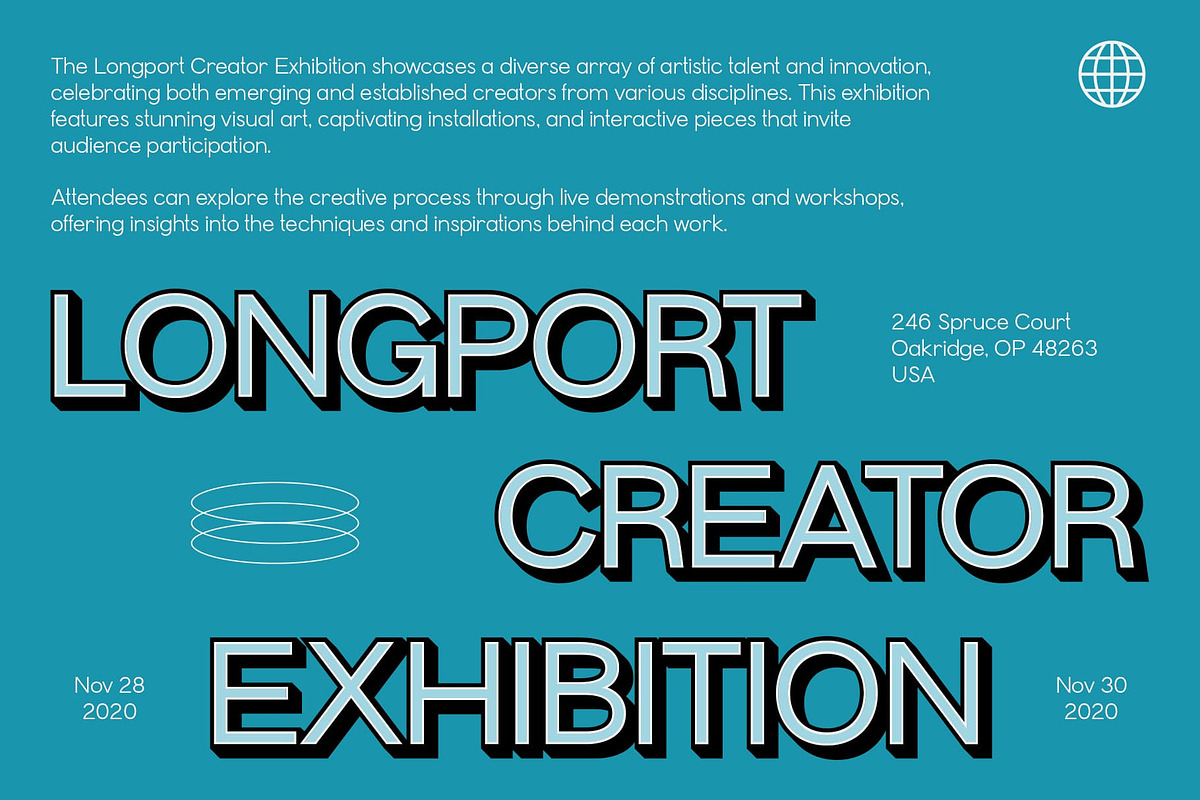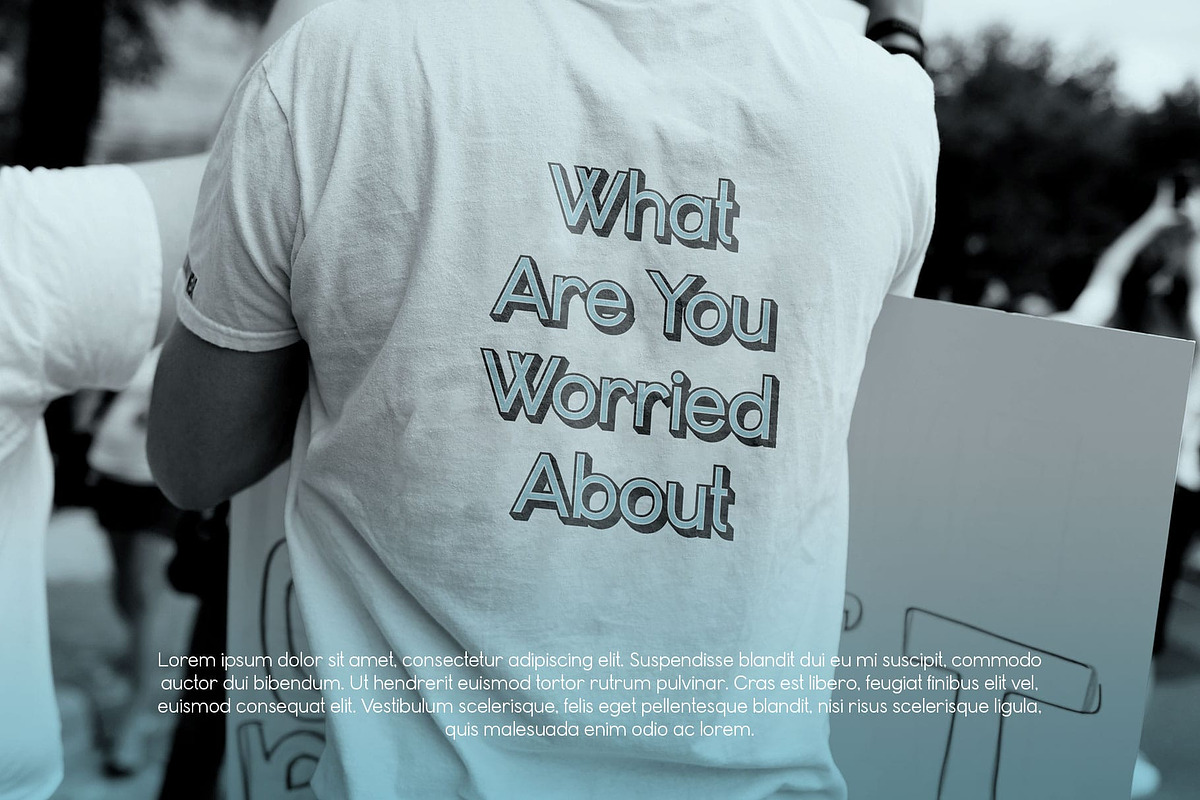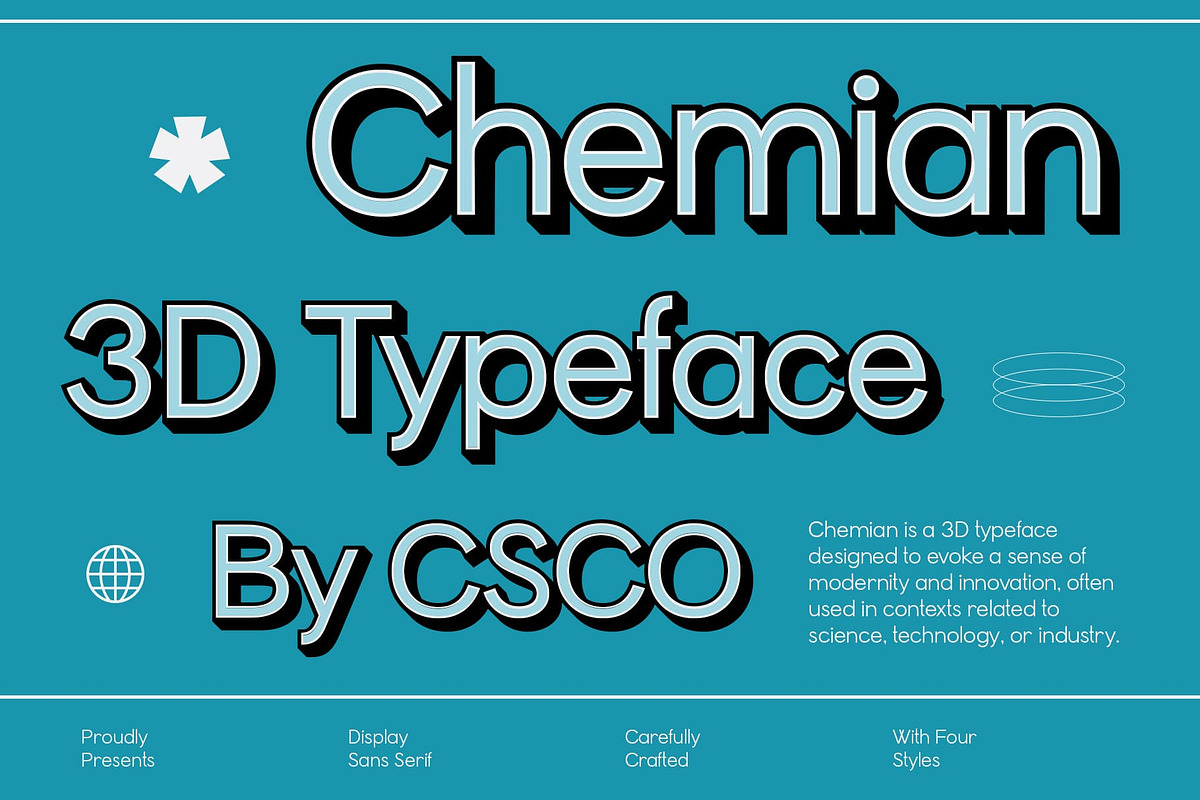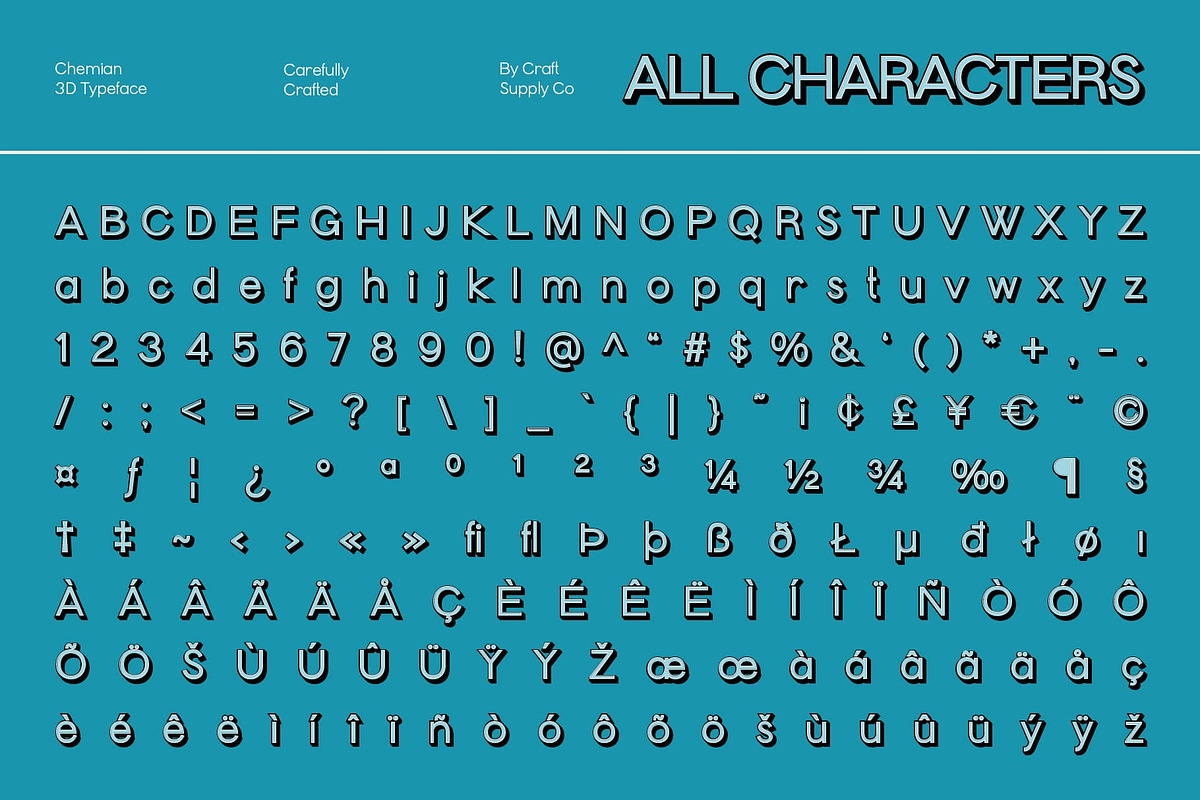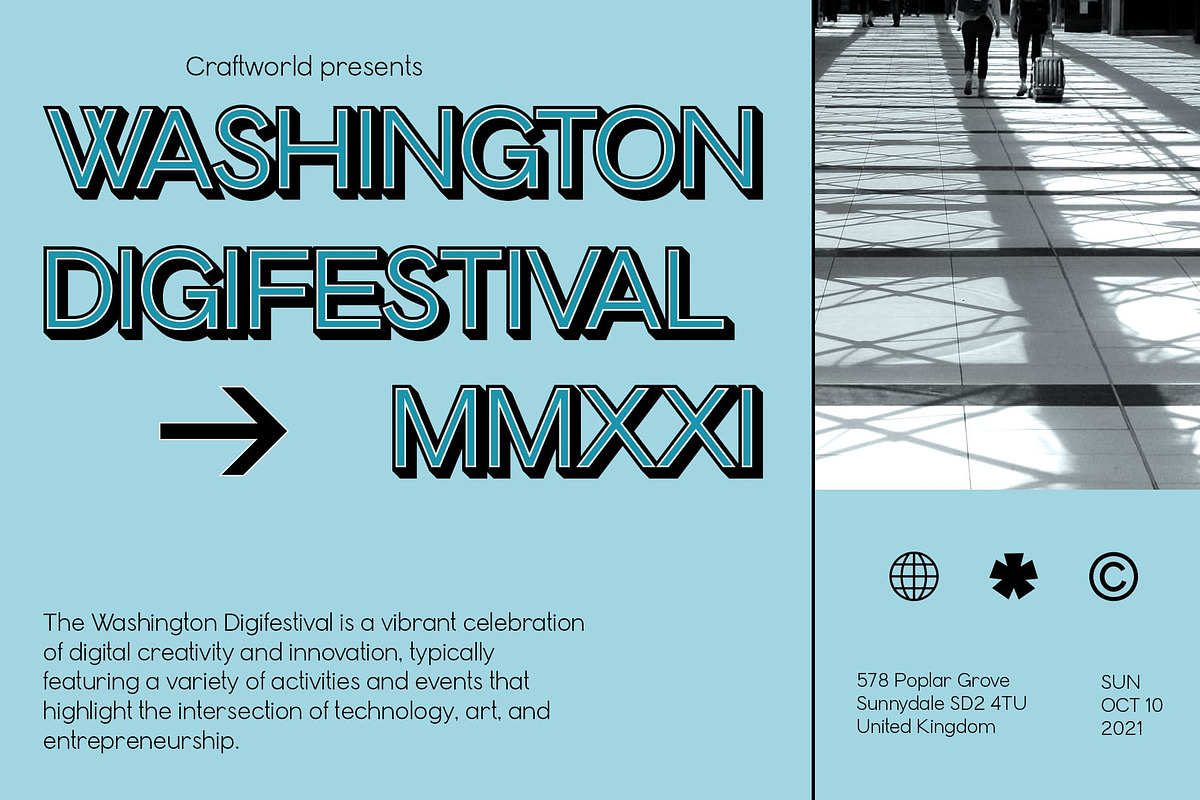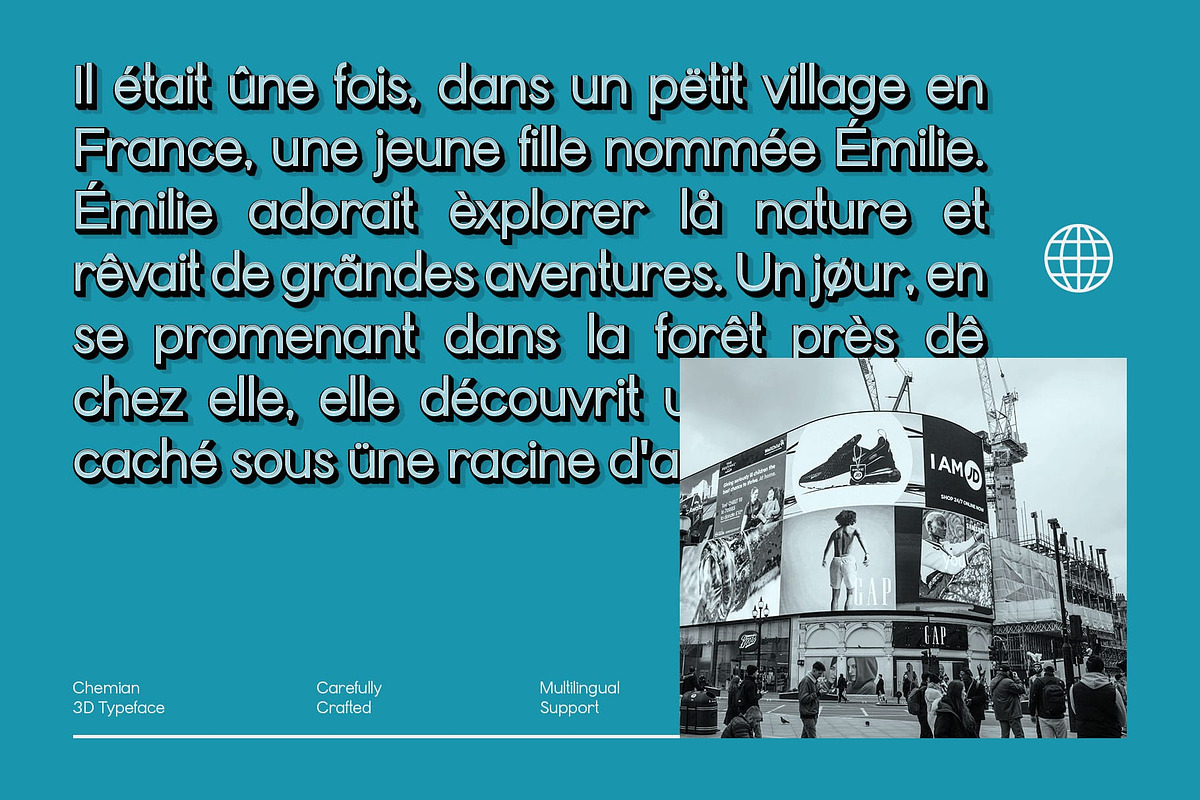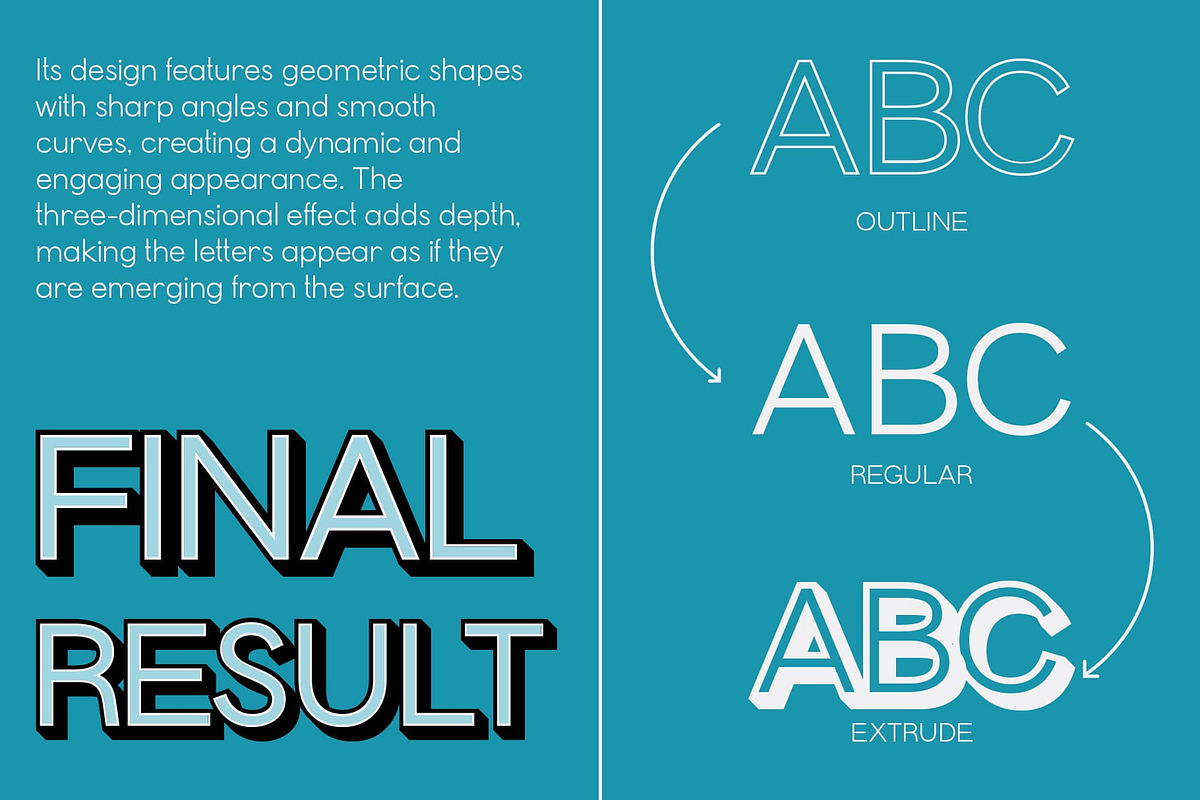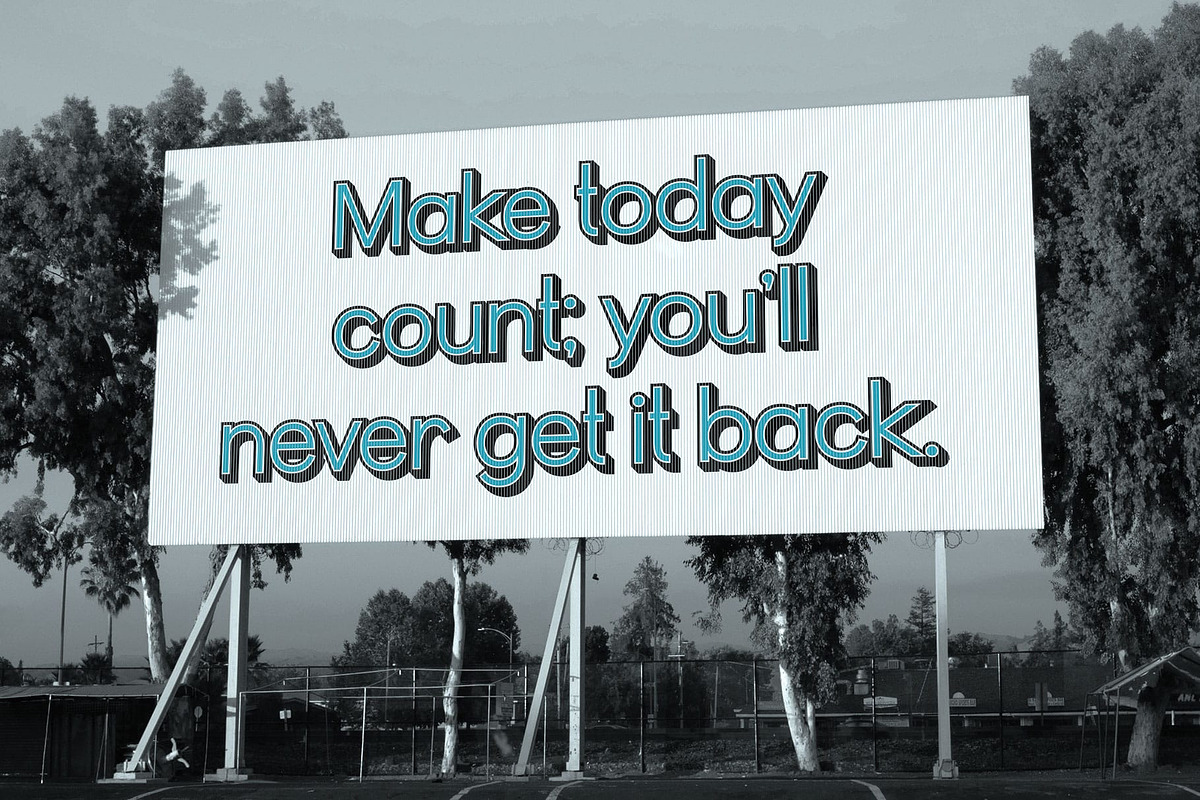
Chemian 3D
Chemian 3D Font: Modern Geometry Meets Dynamic Design
Futuristic Sans Serif Font with 3D Depth Chemian 3D is a modern sans serif font that epitomizes sleek, geometric design layered with an impressive 3D effect. This font features clean, sharp lines and symmetrical forms, delivering a minimalist aesthetic that is both sophisticated and contemporary. The carefully crafted geometric structure ensures a striking visual presence, making it a standout choice for modern design applications.
Key Characteristics for Maximum Impact The distinctive characteristics of Chemian 3D are what set it apart in the realm of typography. Its sharp, symmetrical lines create a visually appealing and cohesive look that exudes professionalism. The innovative 3D effect adds an extra layer of depth, making each letter pop and enhancing the overall vibrancy of the design. This combination not only attracts attention but also encourages engagement, drawing the viewer’s eye to the content.
Versatile Applications Across Design Mediums Chemian 3D is highly versatile, making it suitable for a wide array of design applications. Whether you’re working on branding projects, eye-catching advertisements, or digital media layouts, this font adapts effortlessly to various contexts. Its modern aesthetic makes it perfect for tech companies, startups, and creative agencies looking to convey a forward-thinking and dynamic image.
- Chemian Regular
- Chemian Outline
- Chemian Extrude Right
- Chemian Extrude Left